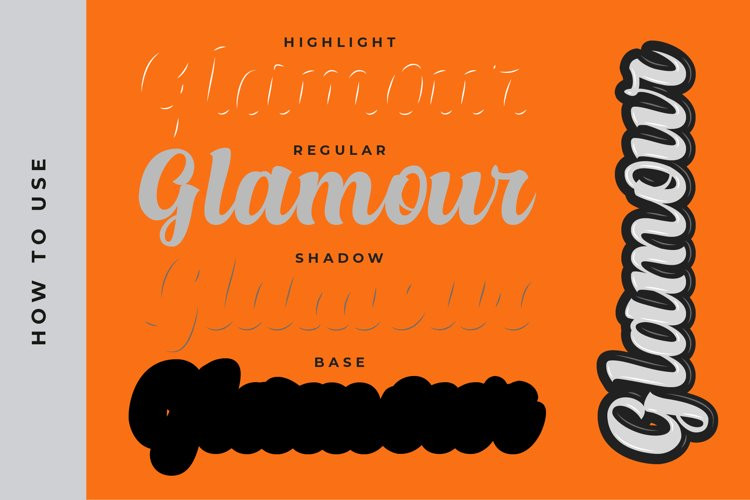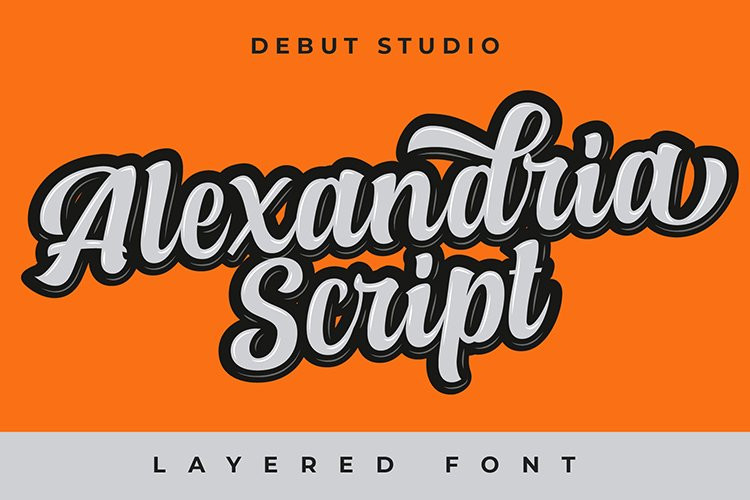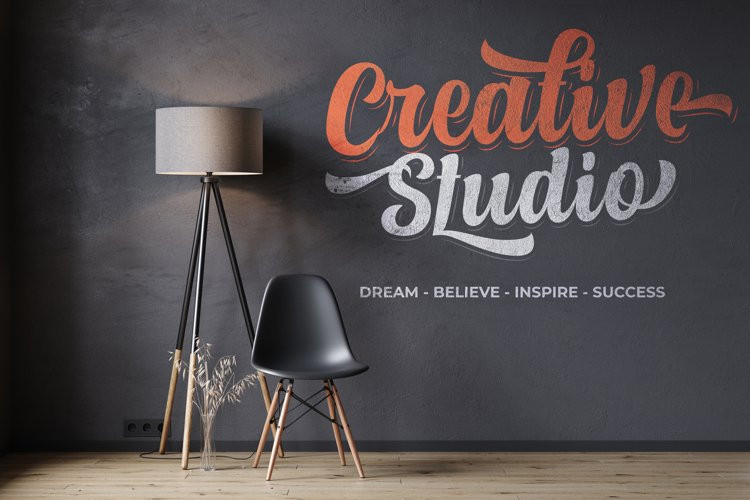
Alexandria Script Font
Alexandria Script FontAlexandria Script has 4 fonts, the four fonts are used with layers method, so it can generate interesting fonts to see, you no longer need to worry about how to make effect on the text.
This font is suitable for young, passionate design, such as logo design, t-shirts, branding, and various other design purposes.